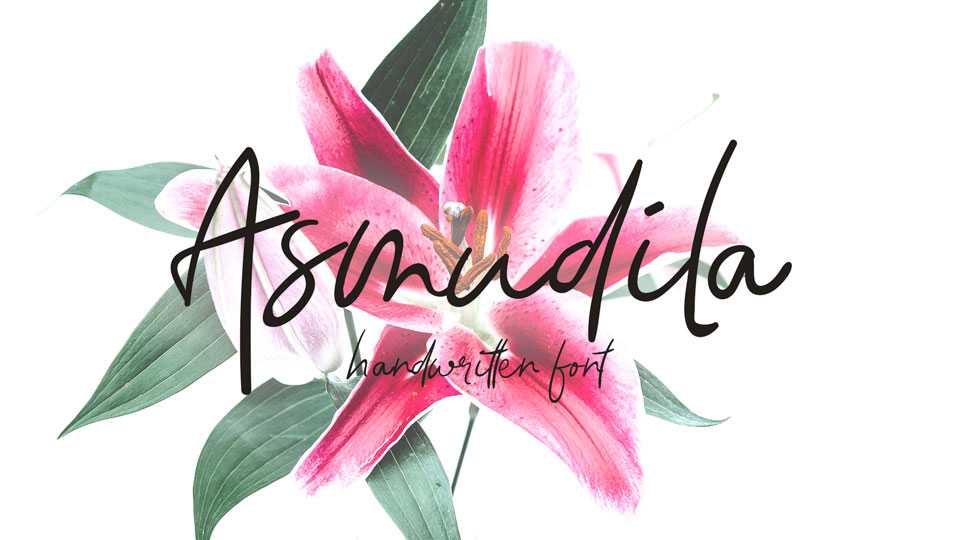
Download Asmudila font, an impressive signature style handwritten font, suitable for personal branding, watermarks, printed quotes, social media, letters and cards and oher wonderful design projects.
Designer: lyanatha